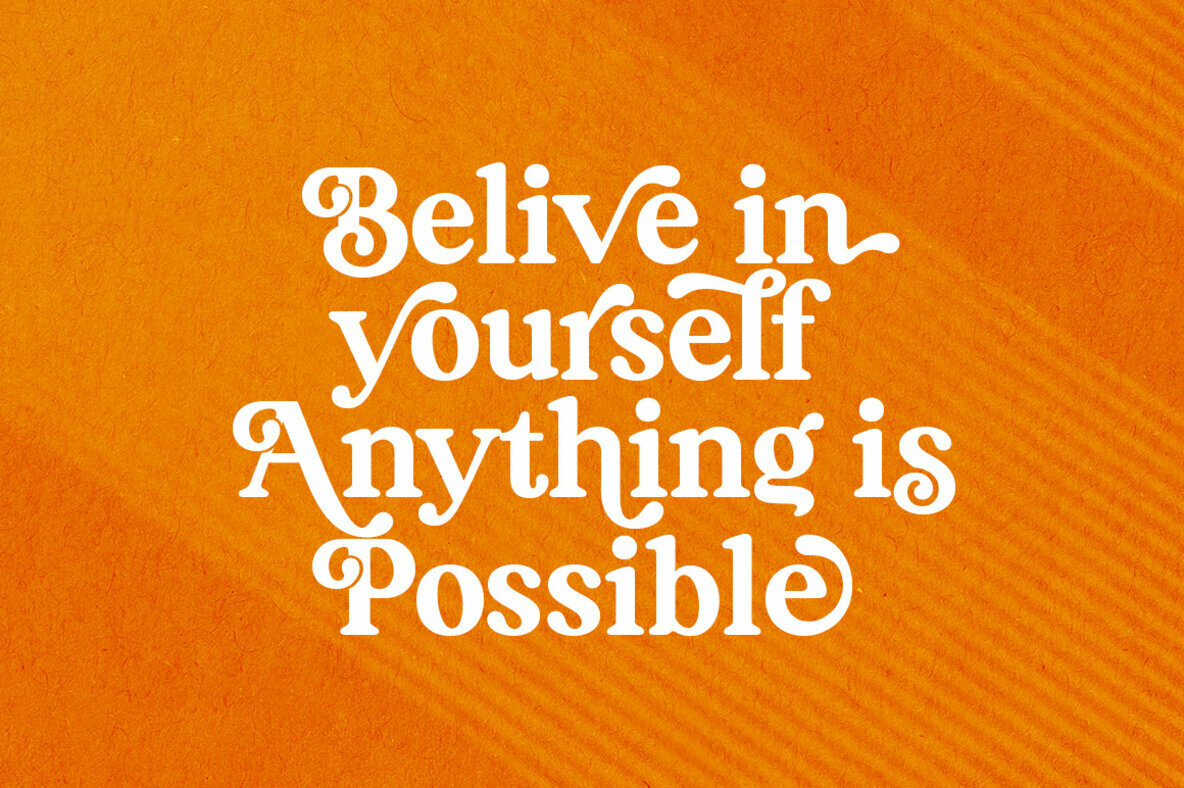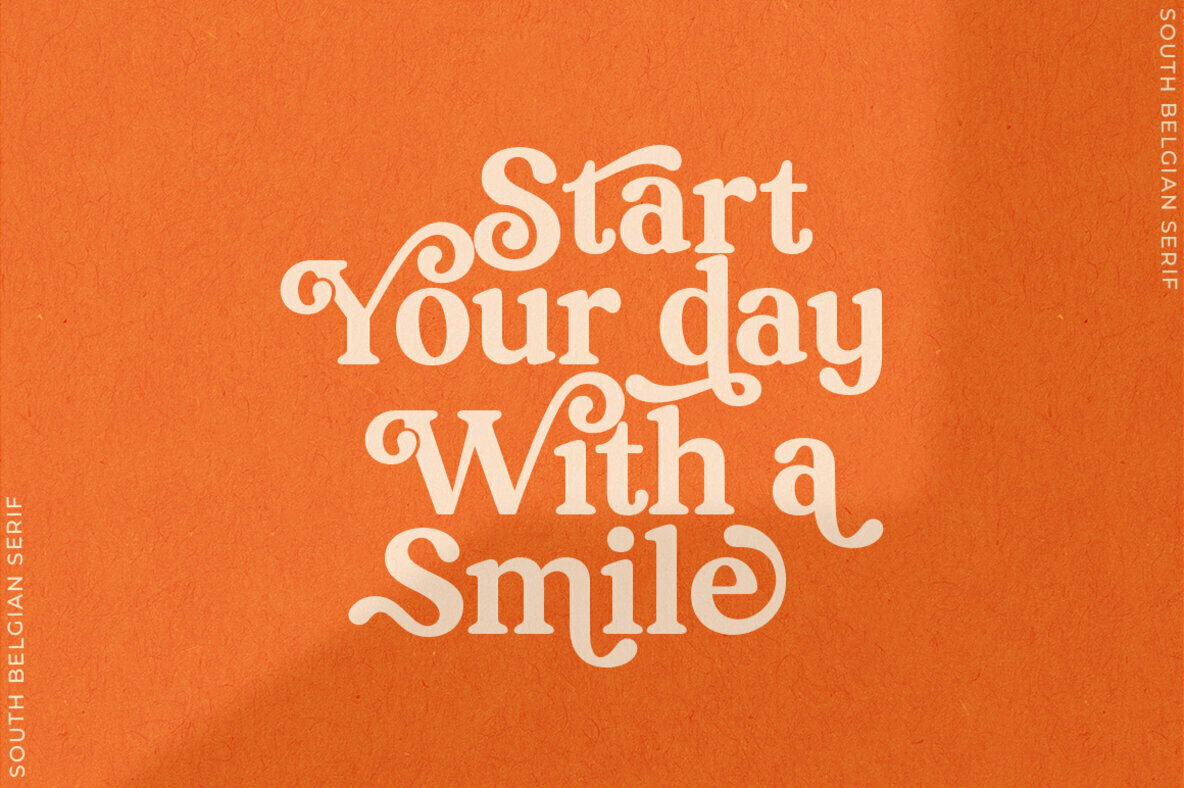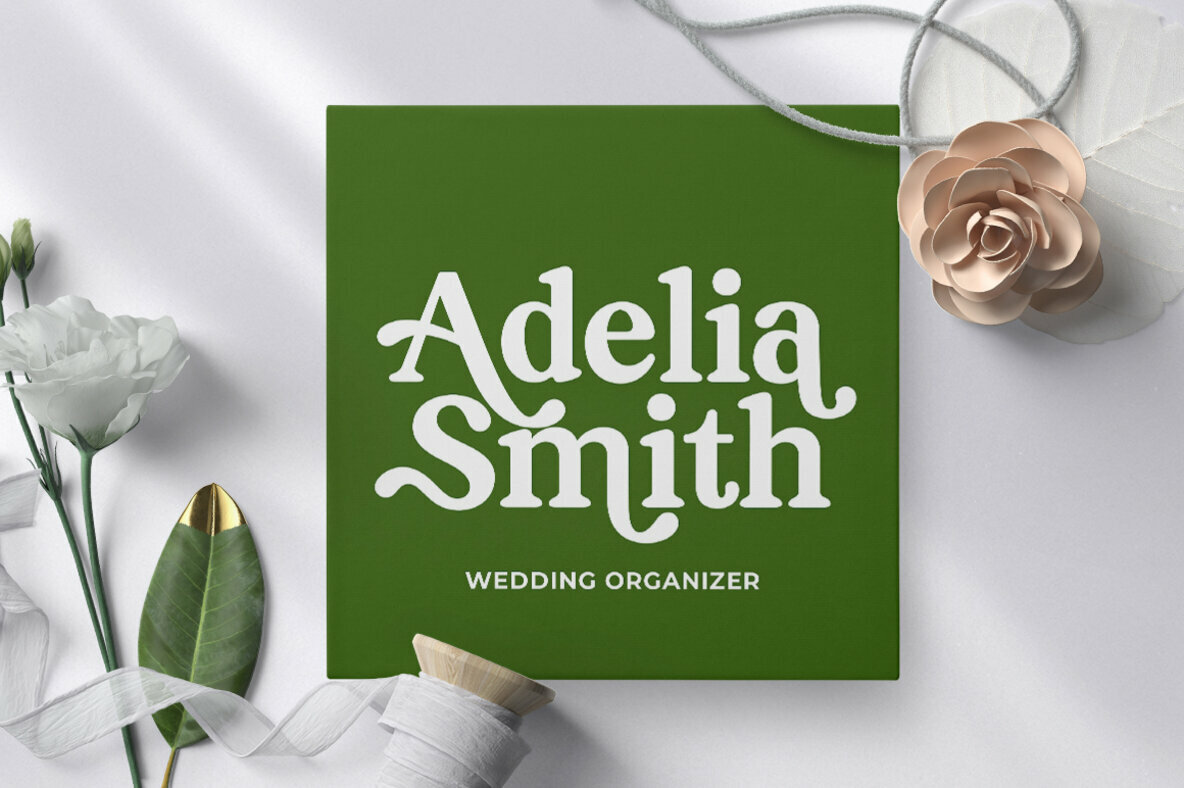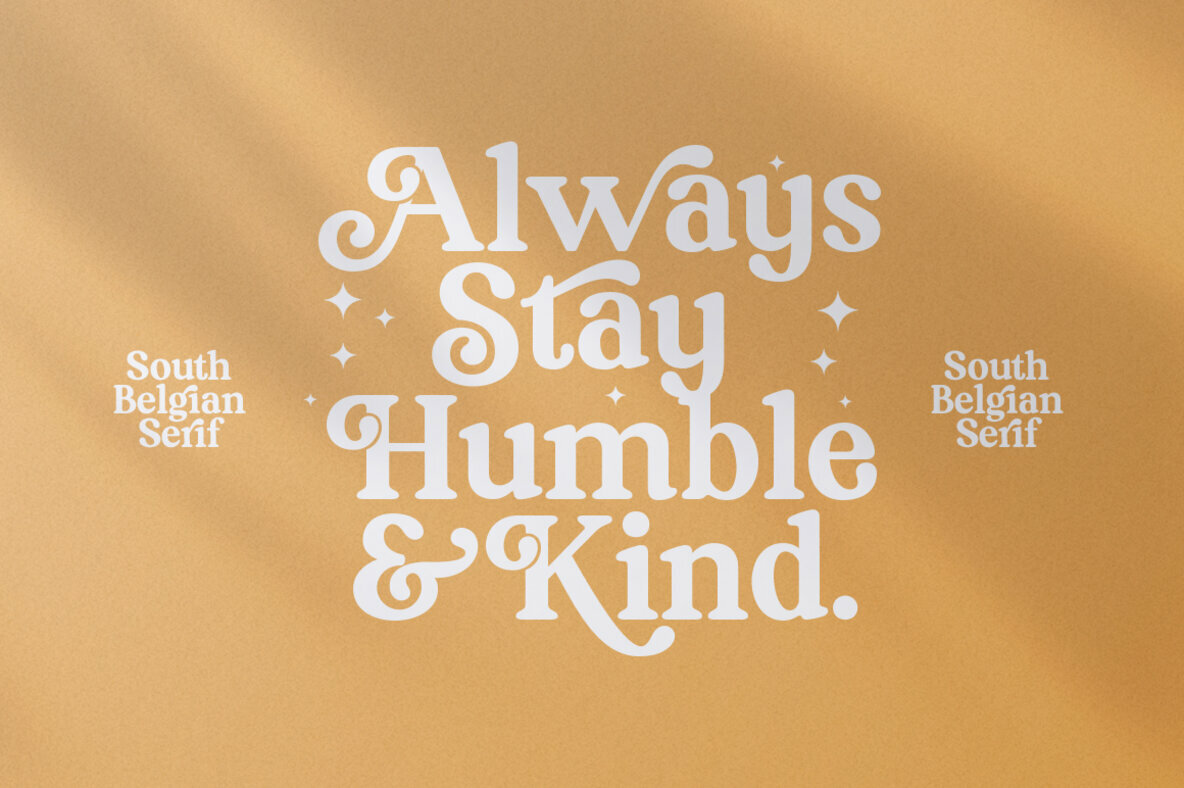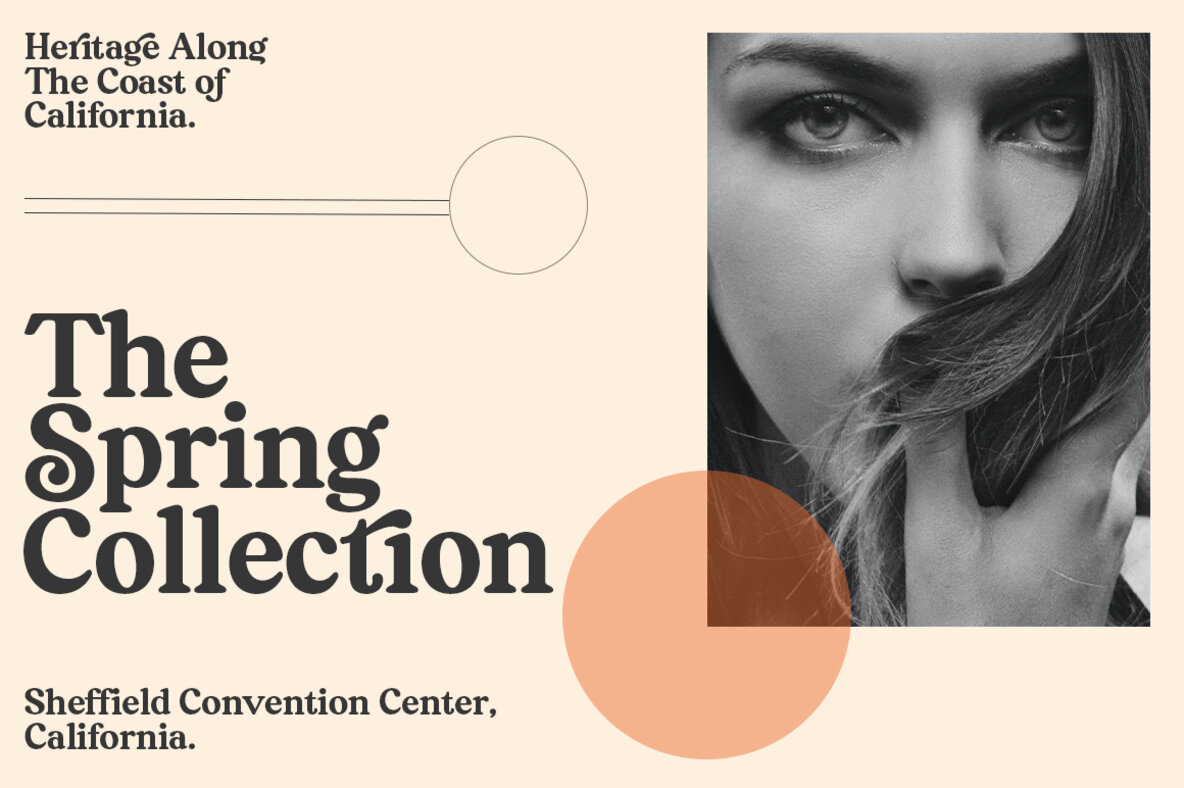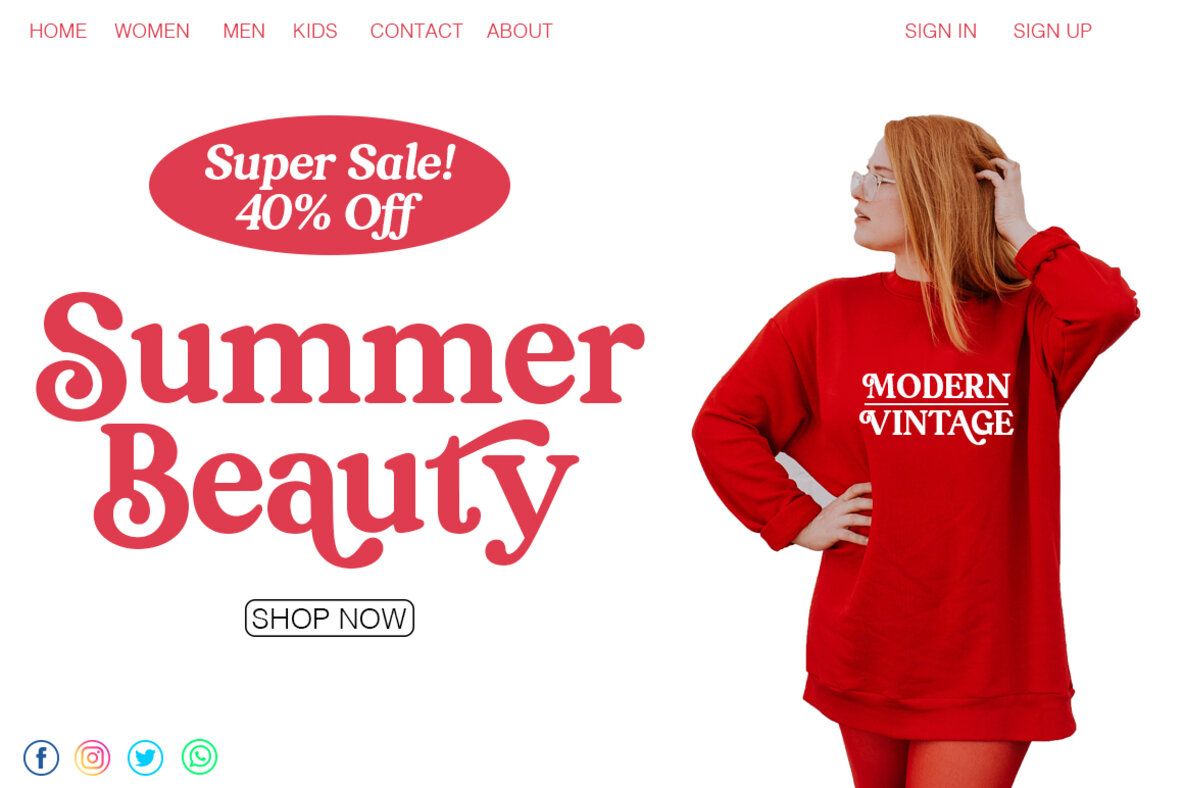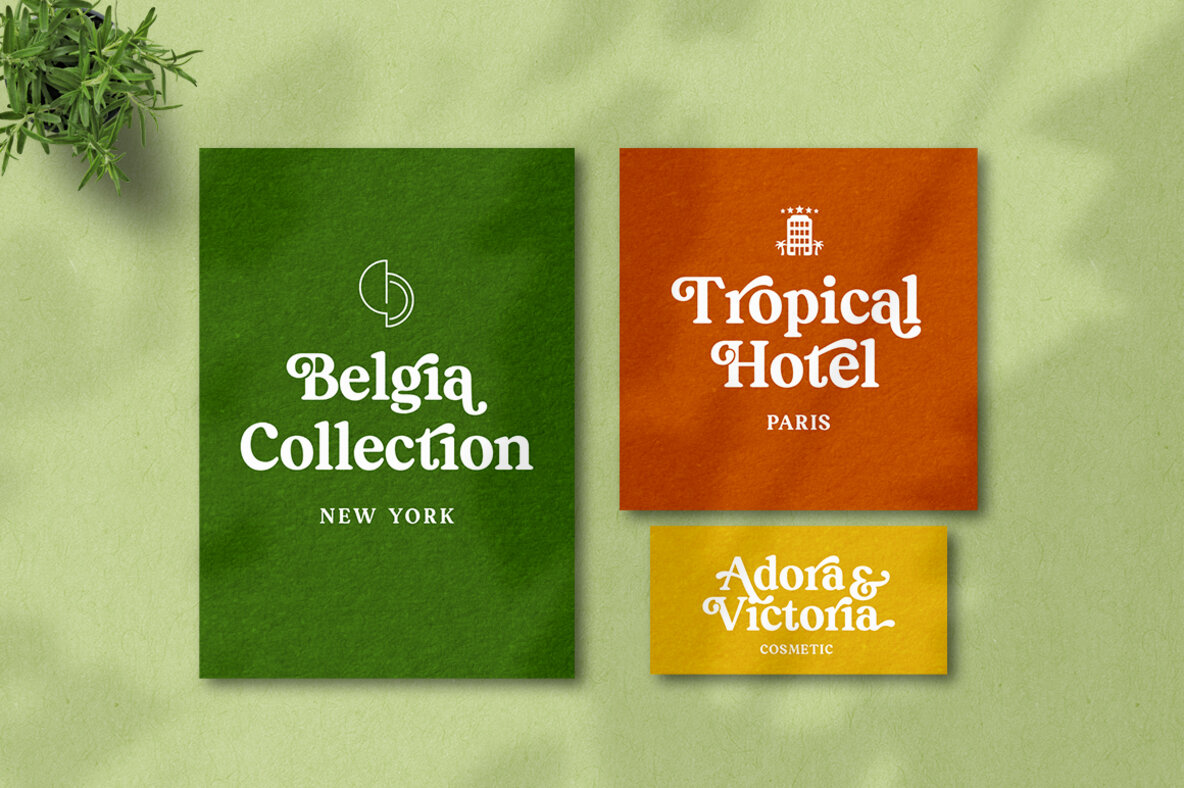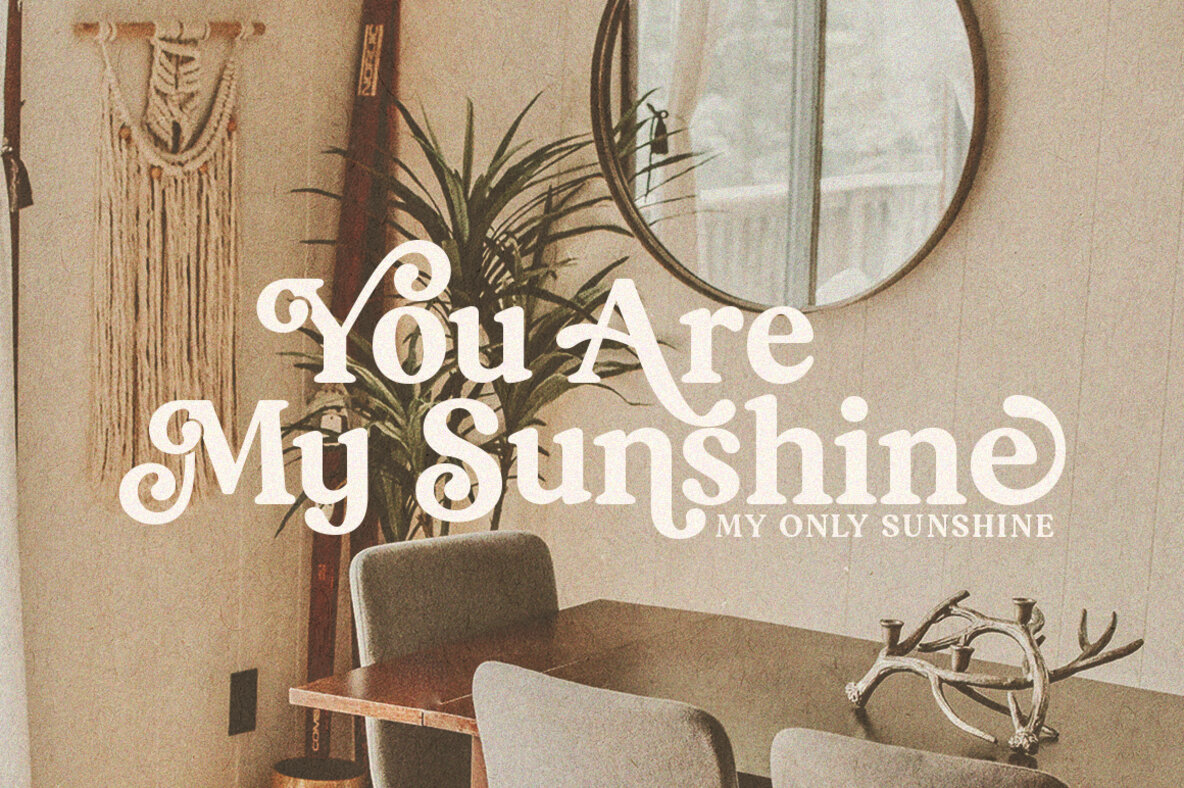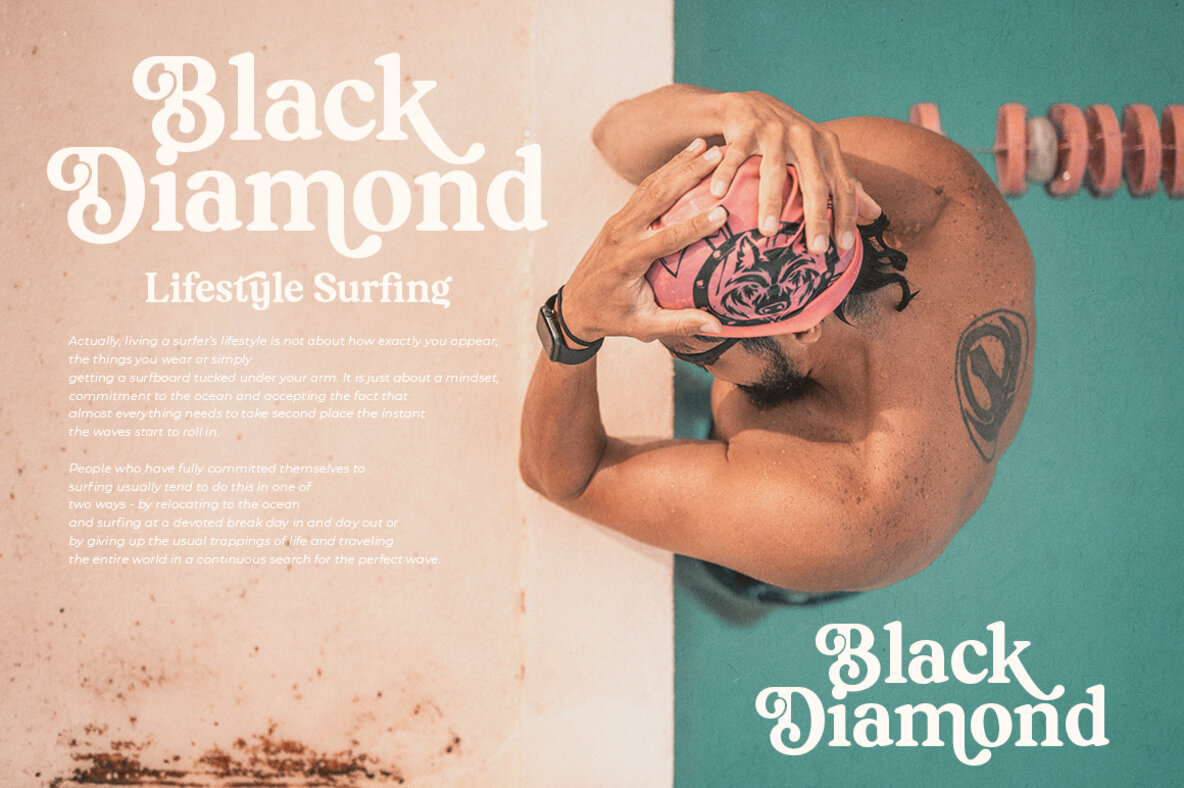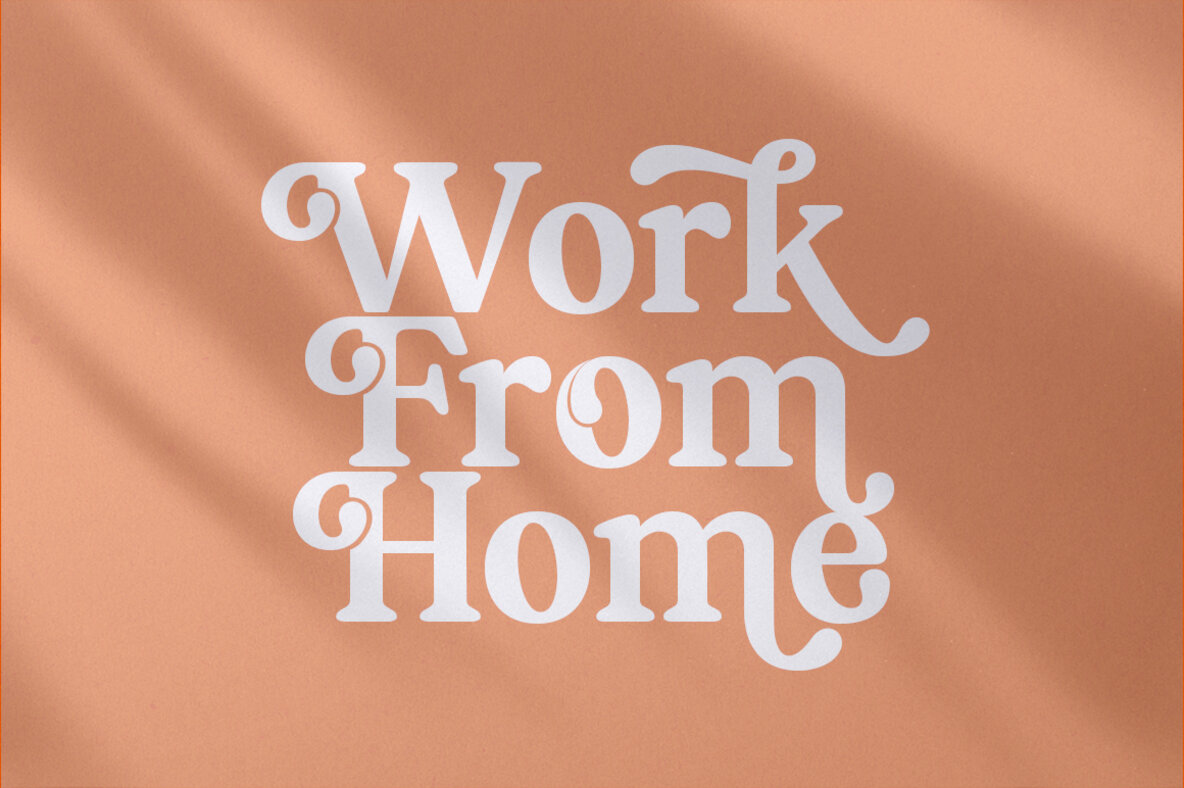
South Belgian Font
South Belgian is a soft vintage serif font packaged in a modern and classy style, complete with access to your OpenType features to access a large selection of alternates letters and ligatures, the choice of letters you like from variations of uppercase and lowercase letters to get a display luxurious and elegant.
South Belgian is Perfect for branding projects, Logo design, Clothing Branding, packaging, magazine headings, advertising, T-shirts, postcards and much more.